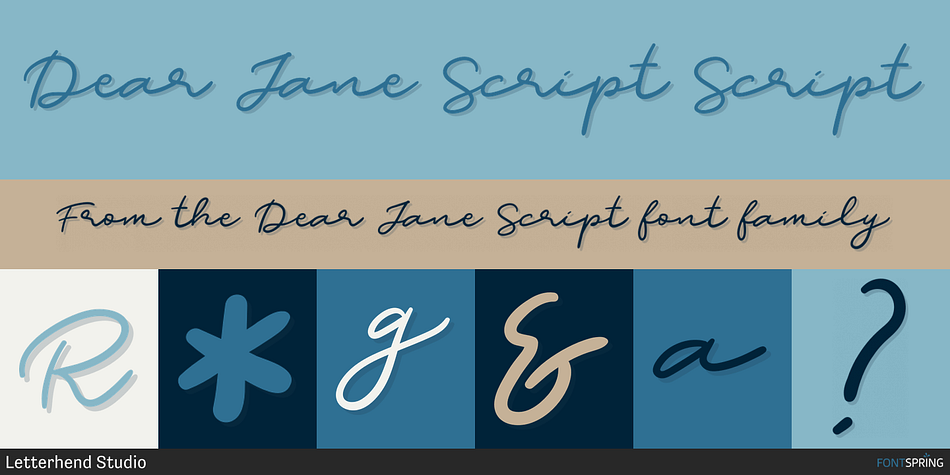
Designed by Hendry Juanda, Dear Jane Script is a hand drawn and script font published by Letterhend Studio.
Dear All, here’s comes Dear Jane. This lovely typeface was made from actual hand writing so it has the natural and romantic feel. Perfect to be used especially for signature, wedding invitation, greeting cards, logo, photography, quotes, apparel design, and any design needs. As usual, the font comes with many opentype features such as ligatures, stylistic set alternate, etc and also support multilingual.